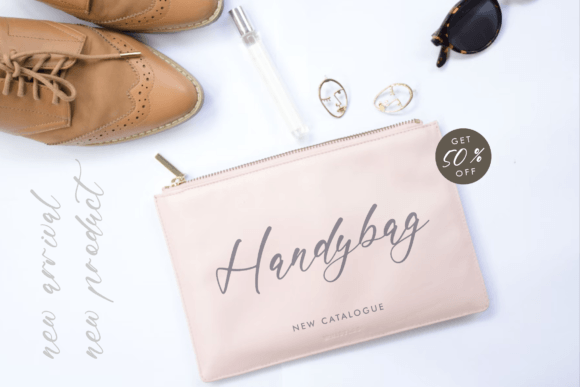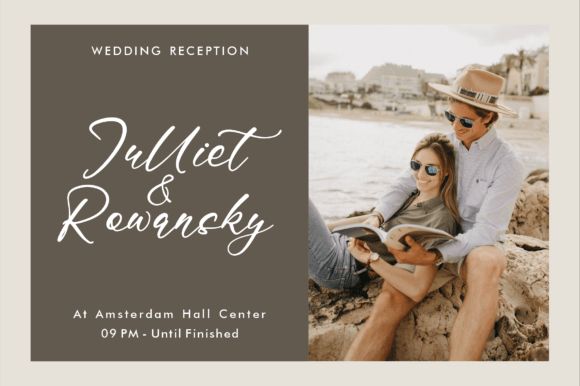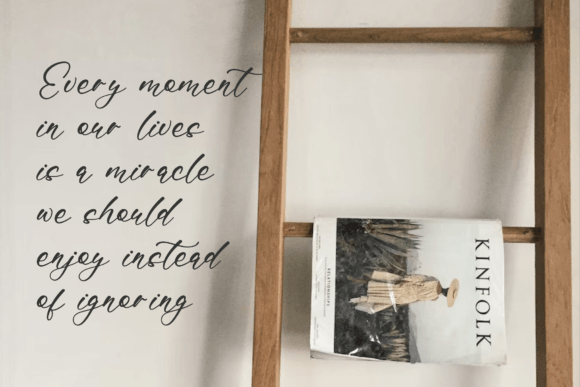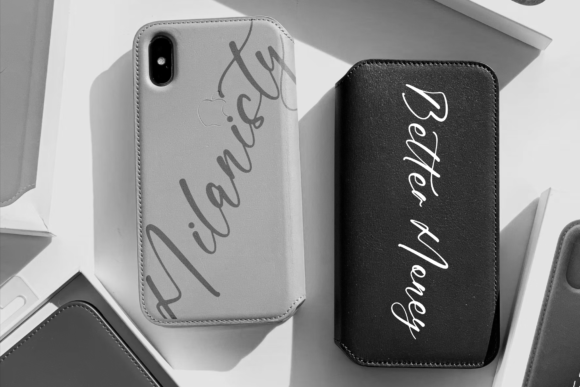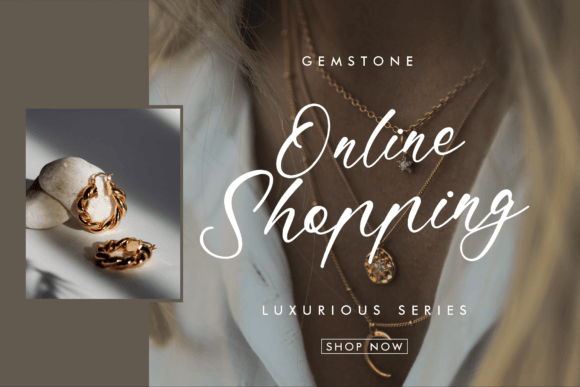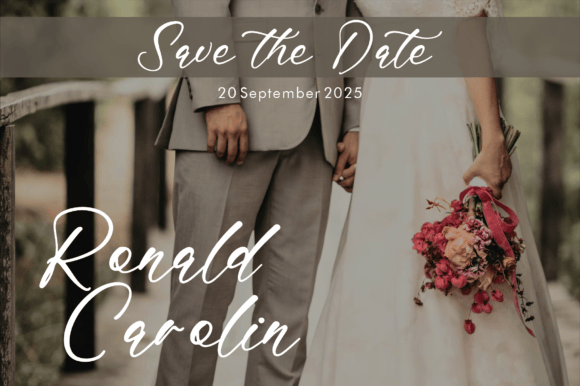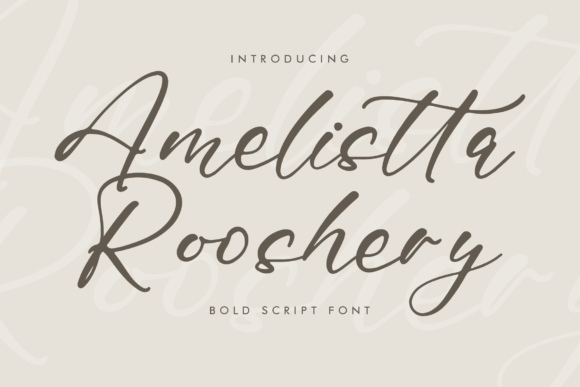
Introducing Amelistta Rooshery Font: Elevate Your Designs with Elegance
Are you on the hunt for a font that exudes sophistication, elegance, and a touch of modern flair? Look no further than Amelistta Rooshery, a stunning handwritten script font that is sure to capture your heart. Designed to perfection, Amelistta Rooshery seamlessly blends classic calligraphic influences with a contemporary twist, making it the perfect addition to your design arsenal.
The Perfect Blend of Classic and Modern
Amelistta Rooshery is more than just a font – it’s an exquisite piece of art that will elevate your projects to new heights. Its classy calligraphic roots are evident in its fluid strokes and elegant letterforms, yet it feels refreshingly modern and current. This unique blend of traditional and contemporary elements makes Amelistta Rooshery an incredibly versatile font, suitable for a wide range of design applications.
What Makes Amelistta Rooshery Stand Out?
- Exquisite Handwritten Style: Amelistta Rooshery boasts a beautiful, handwritten aesthetic that adds a personal touch to any design.
- Classy Calligraphic Influences: The font’s calligraphic roots give it an air of sophistication and elegance, perfect for high-end designs.
- Contemporary and Fresh: Despite its classic influences, Amelistta Rooshery feels modern and fresh, ensuring your designs stay current and on-trend.
- Highly Versatile: Whether you’re working on a logo, branding project, wedding invitation, or social media graphic, Amelistta Rooshery is the perfect choice.
Use Amelistta Rooshery for Your Next Project
So, what can you create with Amelistta Rooshery? The possibilities are endless! Here are a few ideas to get you started:
- Branding and Logos: Create a lasting impression with a custom logo that showcases your brand’s personality and style.
- Wedding Invitations and Stationery: Add a touch of romance and sophistication to your wedding stationery with Amelistta Rooshery.
- Social Media Graphics: Elevate your social media presence with eye-catching graphics that feature Amelistta Rooshery.
- Packaging Design: Stand out on store shelves with beautifully designed packaging that incorporates Amelistta Rooshery.
Why Designers and Crafters Love Amelistta Rooshery
Amelistta Rooshery has quickly become a favorite among designers and crafters, and it’s easy to see why. Here are just a few reasons why:
- Easy to Read: Despite its elegant style, Amelistta Rooshery is highly legible, making it perfect for body text and headings.
- Customizable: With a range of weights and styles to choose from, you can customize Amelistta Rooshery to suit your design needs.
- Time-Saving: With Amelistta Rooshery, you can create stunning designs in a fraction of the time it would take with other fonts.
Get Ready to Fall in Love with Amelistta Rooshery
In conclusion, Amelistta Rooshery is a true gem in the world of typography. Its unique blend of classic and modern elements, combined with its versatility and elegance, make it the perfect addition to any design project. Whether you’re a seasoned designer or a crafty DIY enthusiast, Amelistta Rooshery is sure to capture your heart and take your designs to the next level. So why wait? Fall in love with Amelistta Rooshery today and discover a world of limitless design possibilities!